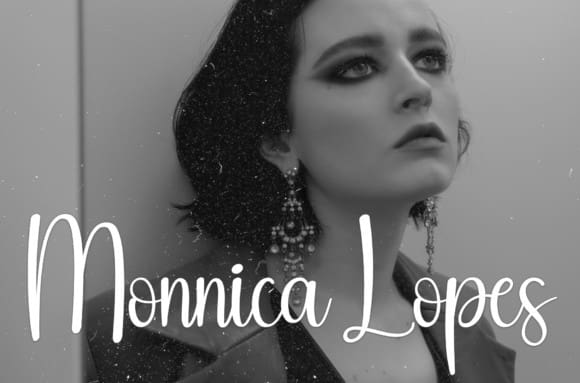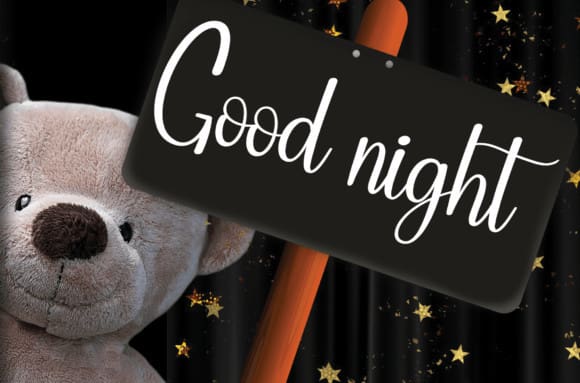
Flying Balloons Font
Flying Balloons Font is a sweet and friendly handwritten font. Creative and cute, this font is ideal for writing wedding invitations, cards, or any other design that might need a fun touch!